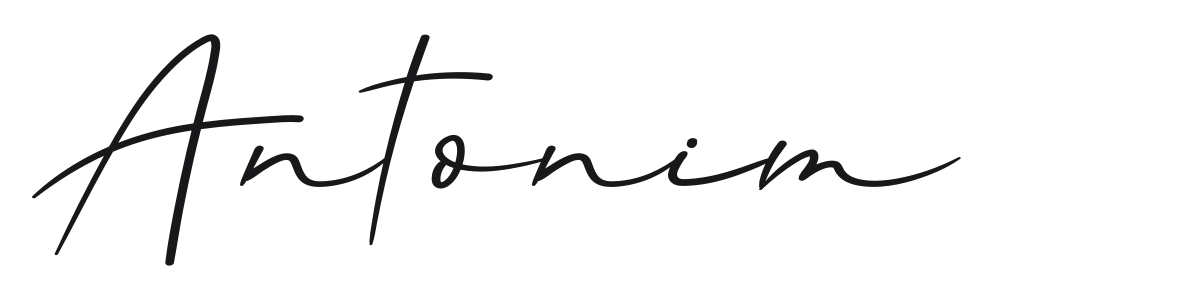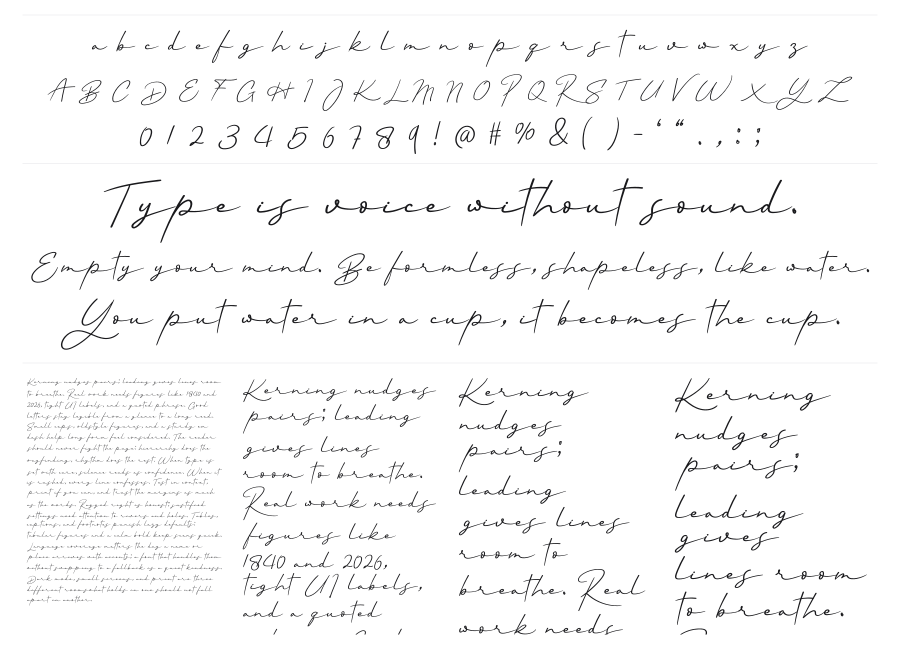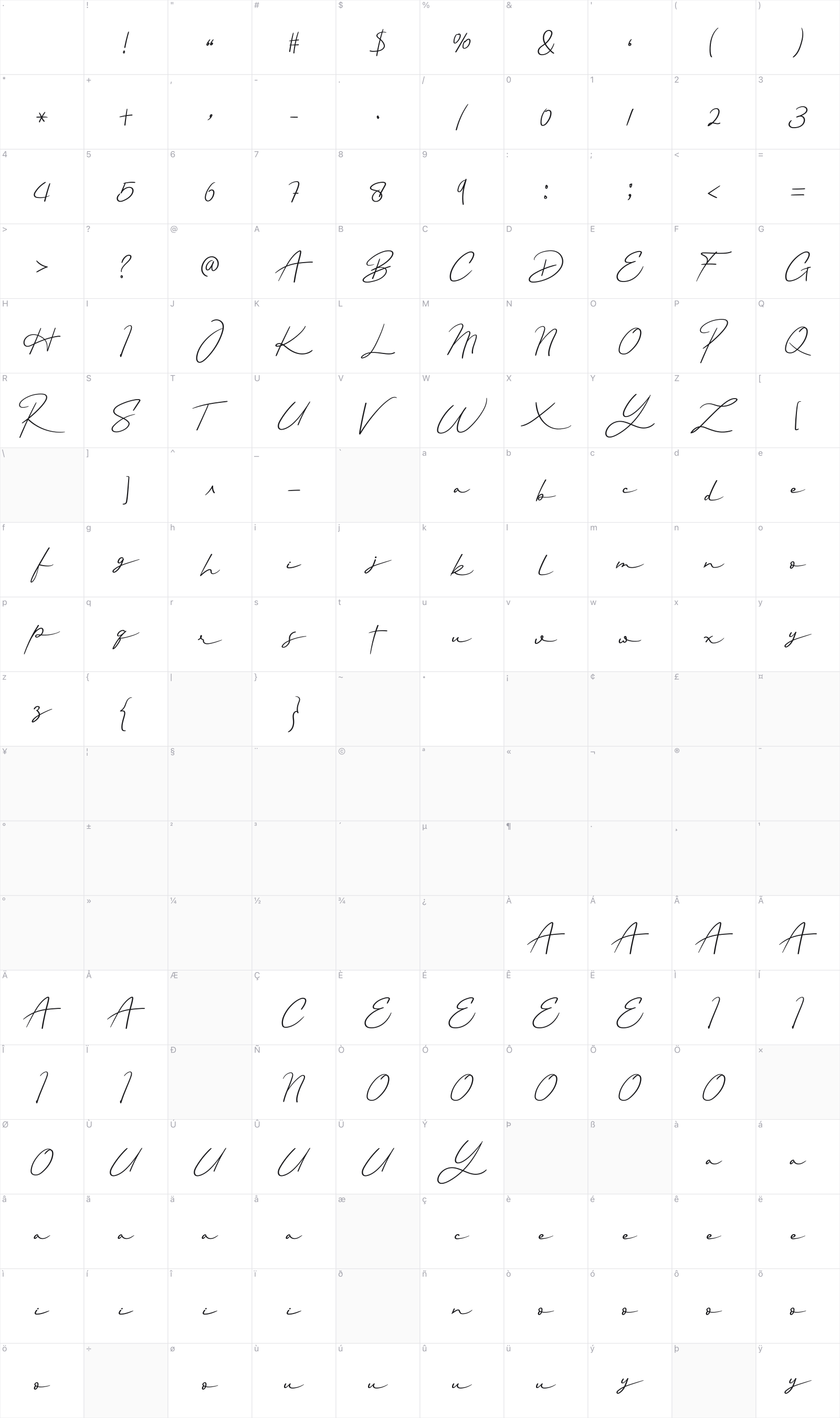
Antonim
Antonim is a flowing casual script with near-hairline strokes and long, sweeping connections between letters. The generous looping strokes and airy spacing give it a relaxed elegance that reads more like a practiced signature than a formal calligraphic hand. It sits naturally in wedding stationery, beauty branding, and lifestyle packaging.